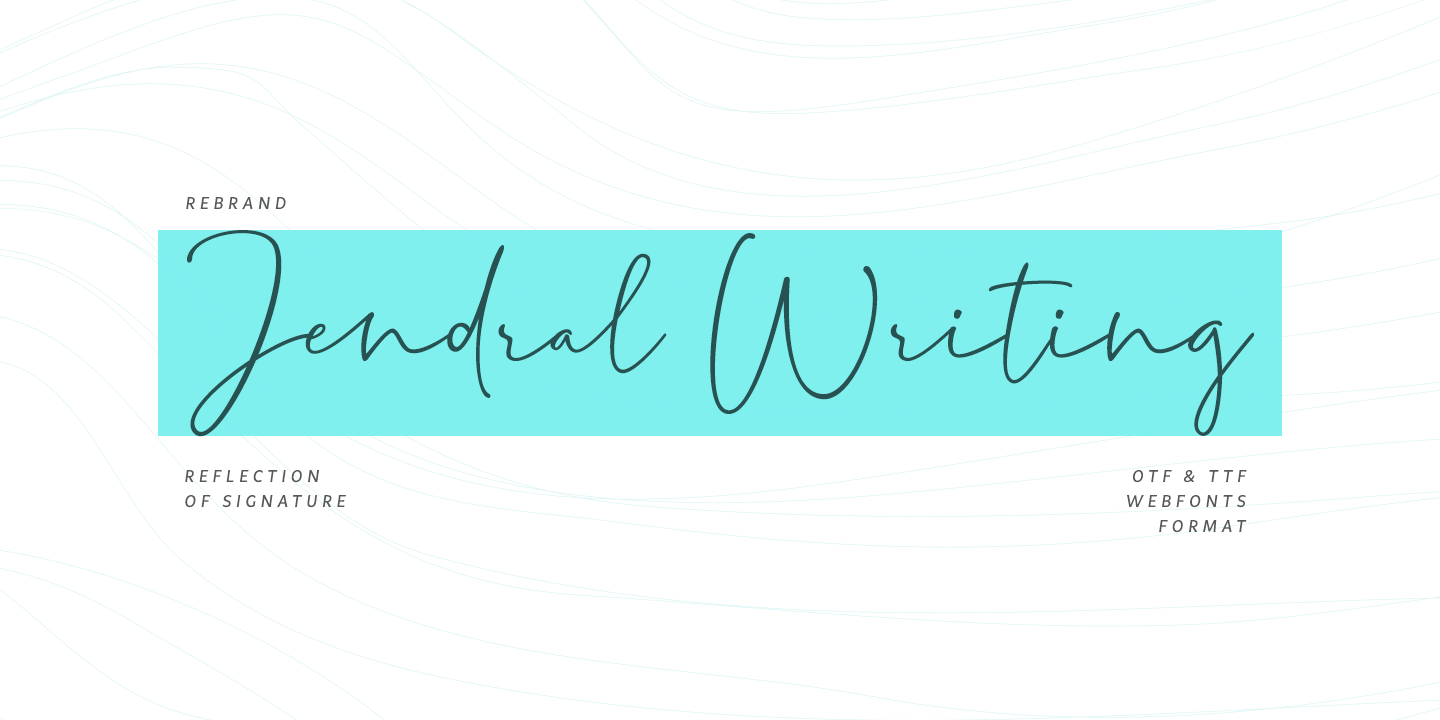
Jendral Writing Pro Font is an exceptionally refined and authentically expressive typeface, perfectly suited for projects that demand the sophisticated touch of professional handwriting with unparalleled versatility. Imagine it gracing the luxurious invitations for exclusive events, adding a distinguished and personal flair to bespoke product branding, or providing an elegant signature aesthetic for high-end corporate communications. It's also an excellent choice for crafting heartfelt personalized certificates, designing unique logos that convey craftsmanship and prestige, or infusing editorial layouts and artistic portfolios with a truly captivating and authoritative personality. If you're looking to convey elegance, authenticity, and an undeniable sense of meticulous artistry, Jendral Writing Pro Font is an outstanding selection.
What makes Jendral Writing Pro Font so exciting? It’s its unique ability to combine the natural spontaneity of genuine handwriting with the advanced features of professional typeface design. This "Pro" version often includes an extensive character set, ligatures, stylistic alternates, and swashes that allow for truly customized and harmonious typographic compositions, mimicking the nuanced variations of real penmanship. Despite its intricate detail, Jendral Writing Pro Font is meticulously designed to maintain excellent readability across various applications, ensuring your message is communicated beautifully and with an engaging, personal tone. Designers will appreciate its versatility in creating designs that feel both intimately personal and flawlessly polished, making it a go-to choice for brands and individuals who aim to foster trust and convey a high-quality, bespoke image.
The Jendral Writing Pro Font family is typically designed to showcase a singular, beautifully crafted script or signature style that perfectly embodies its unique appeal. Its "Pro" designation implies a robust set of OpenType features, allowing for seamless connections between letters and a rich variety of glyph options to ensure every word flows naturally. These comprehensive features ensure that Jendral Writing Pro Font maintains its cohesive and captivating look across diverse applications, from elegant endorsements and product packaging to charming personal correspondence and official documents. Discover the authentic charm and professional capabilities of Jendral Writing Pro Font Free Download and infuse your designs with an unforgettable sense of artistry and individuality.